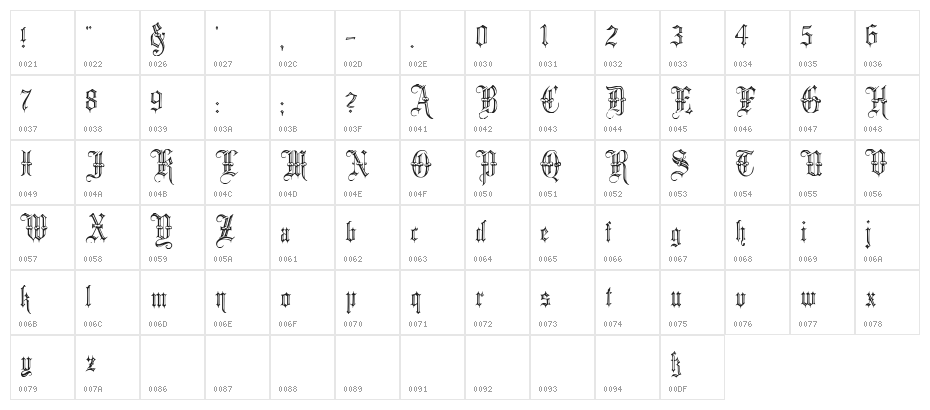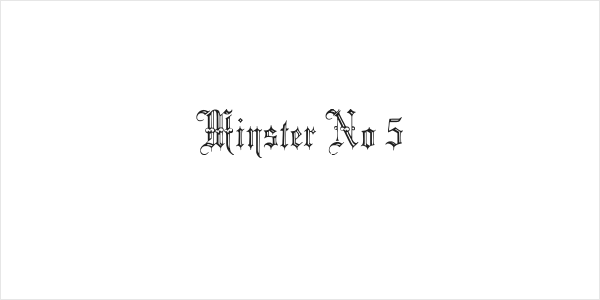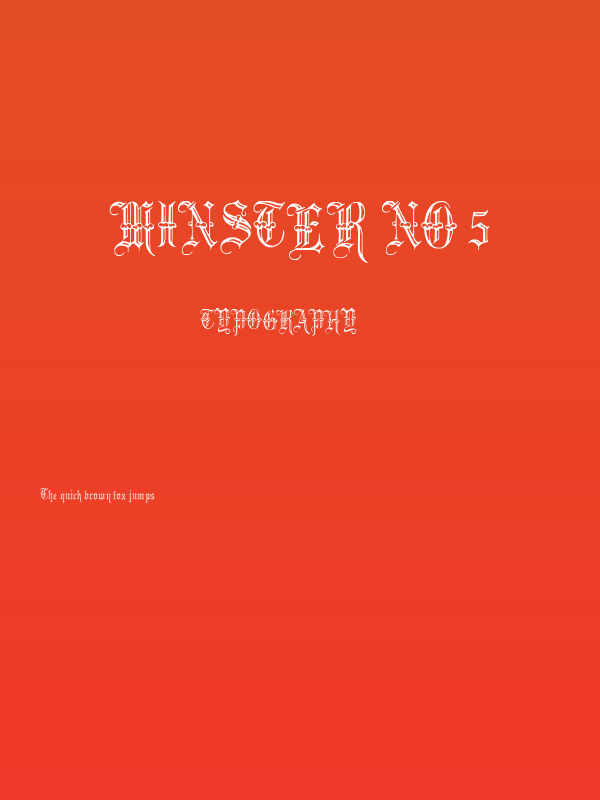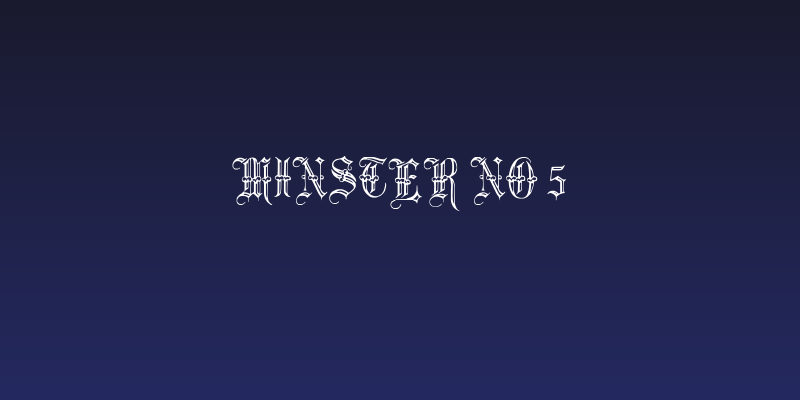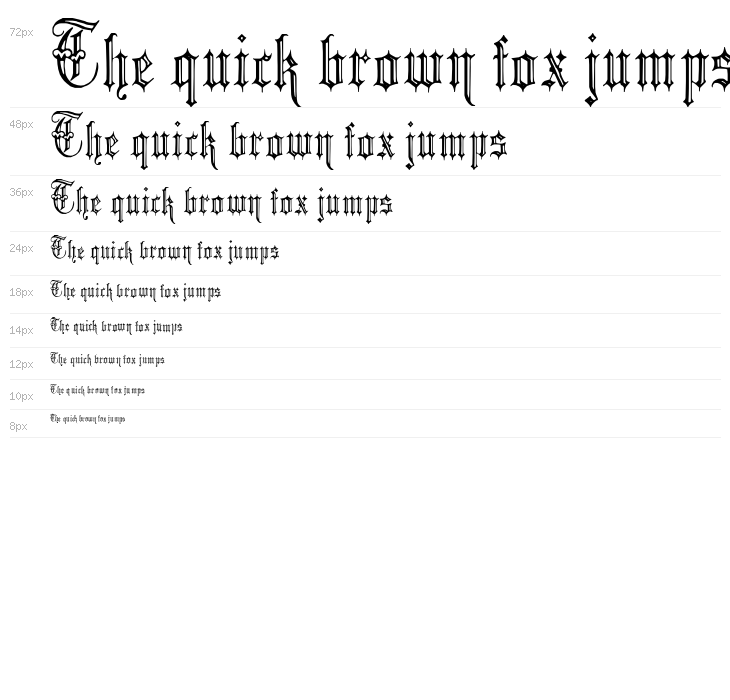
Minster No 5 Font
Minster No 5 Description
This font features a classic blackletter style, characterized by its intricate and ornate design. The uppercase letters are highly decorative, with elaborate flourishes and sharp, angular lines that give a sense of historical elegance. The lowercase letters maintain the same level of detail, with a slightly more condensed form that complements the uppercase. Numbers and special characters follow the same stylistic approach, ensuring consistency across all glyphs. The overall appearance is reminiscent of medieval manuscripts, making it ideal for projects that require a touch of antiquity and sophistication.
| Proposed Projects | Suitable for historical documents, certificates, wedding invitations, book covers, and branding that requires a vintage or gothic aesthetic. |